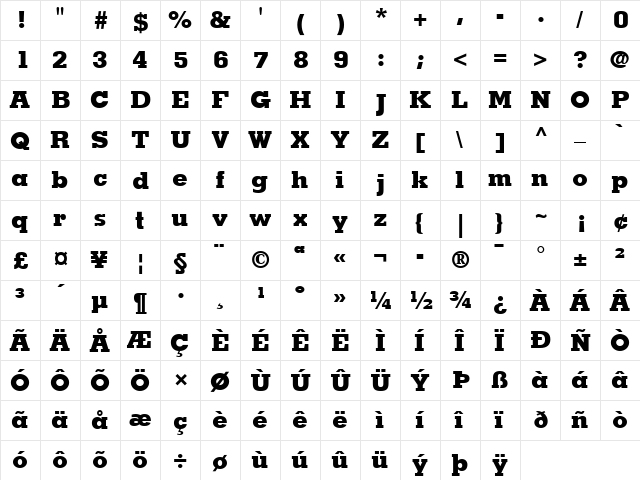
Memphis LT ExtraBold Regular
Design Context for Memphis LT ExtraBold Typeface
Memphis LT ExtraBold is a composed and adaptable typeface that performs quietly and consistently across a wide range of design contexts. Its bold stroke weight gives it real presence on the page.
Pro Tip: Use Memphis LT ExtraBold in both headline and body roles to test its range before committing to a single application.